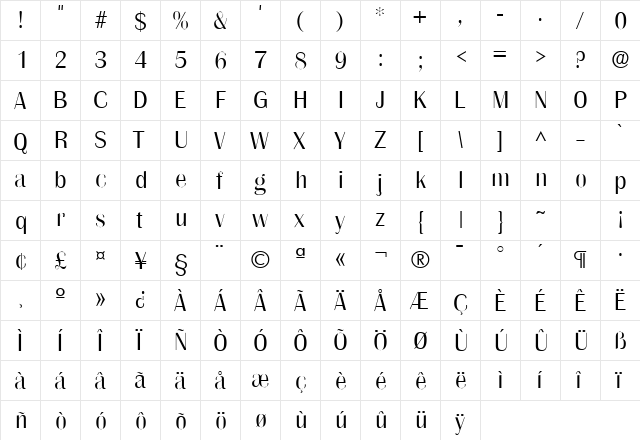
Grenoble Light SF Regular
Design Context for Grenoble Light SF Typeface
Grenoble Light SF is a composed and adaptable typeface that performs quietly and consistently across a wide range of design contexts. Its slender proportions lend an understated elegance to any composition.